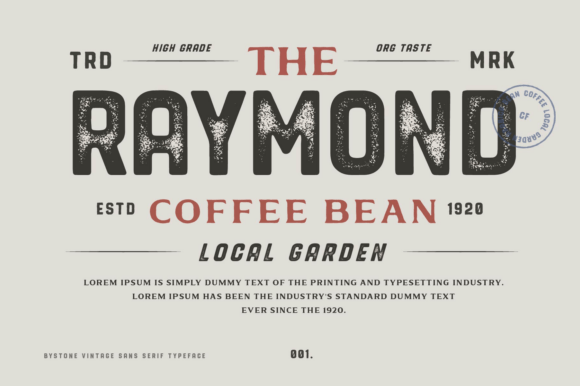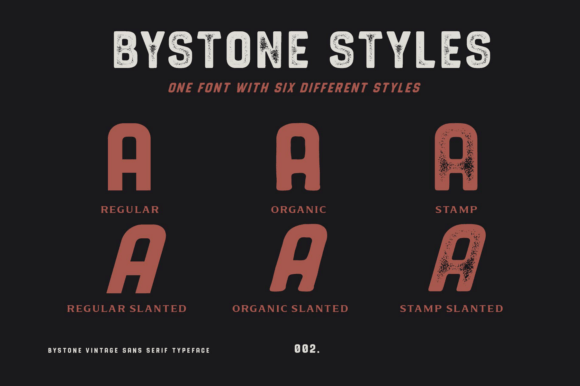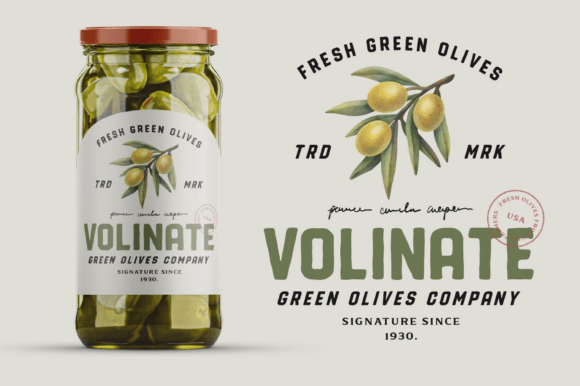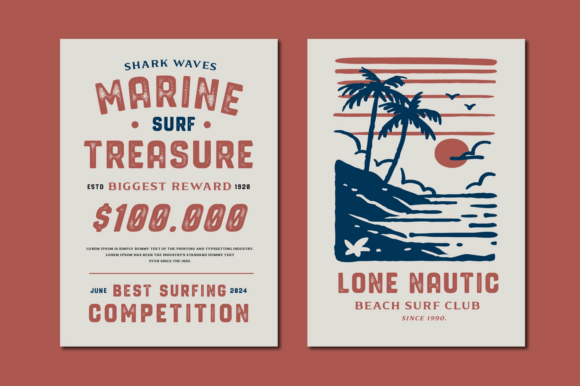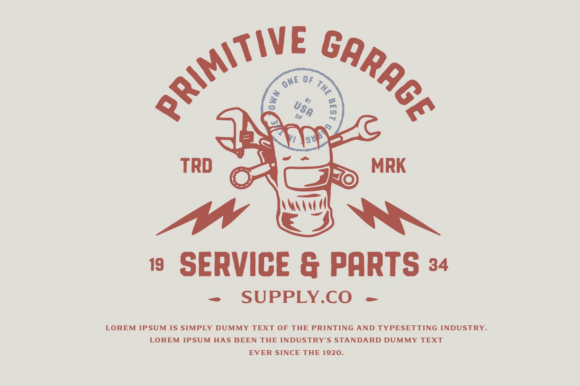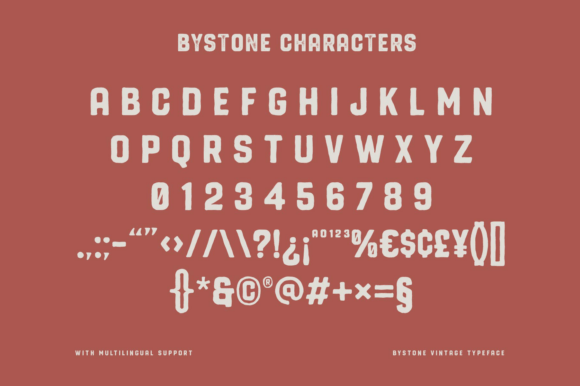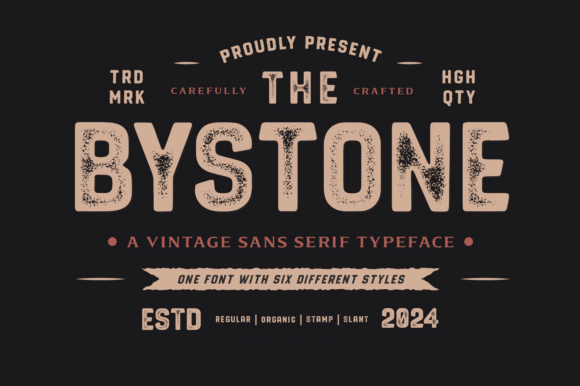
Bystone Font: Elevate Your Designs with a Timeless Vintage Flair
In the realm of typography, few fonts manage to capture the essence of vintage charm while exuding a sense of timelessness. Bystone Font is one such remarkable typeface that seamlessly blends classic character with a natural, effortless vibe. Designed to infuse your creative projects with authentic personality and enduring style, Bystone is the perfect companion for designers and crafters looking to make a bold statement.
The Essence of Bystone
Bystone is a vintage display sans serif font that boasts a classic yet natural character. Its design is rooted in the principles of bringing a sense of nostalgia and authenticity to modern design projects. Whether you’re crafting bold branding, standout logos, editorial headlines, or social media graphics, Bystone offers the perfect blend of vintage charm and contemporary appeal.
A Family of Styles
One of the standout features of Bystone is its versatile family of styles, each meticulously crafted to cater to different design needs and preferences. The font family includes:
- Regular Style: The Regular style of Bystone offers clean, balanced shapes with a classic presence. It’s ideal for designs that require a straightforward yet elegant approach. This style ensures that your text is legible and stylish, making it perfect for use in headings, titles, and where a subtle vintage touch is desired.
- Organic Style: For those looking to add a more natural look to their designs, the Organic style brings in subtle handcrafted details. This style adds a layer of warmth and personality to your text, giving it a more approachable and earthy feel. It’s great for designs that aim to tell a story or connect with the audience on a more personal level.
- Stamp Style: The Stamp style gives Bystone a rugged, weathered feel, adding character and depth to your designs. This style mimics the look of stamped or carved text, bringing a sense of durability and timelessness. It’s perfect for creating a bold impression, especially in branding and logos that require a strong, resilient look.
- Slant Style: The Slant style introduces gentle motion and an expressive vibe to Bystone. This dynamic style is ideal for designs that need to convey movement or a casual, approachable tone. It adds a creative twist to your text, making it more engaging and eye-catching.
Applications of Bystone
Bystone’s versatility makes it suitable for a wide range of applications. Here are some of the key areas where Bystone can make a significant impact:
- Bold Branding: Use Bystone to create memorable brand names, taglines, or slogans that stand out. Its vintage flair can help your brand appear more unique and captivating.
- Standout Logos: A logo is often the first impression of a brand. Bystone, with its range of styles, can help you create a logo that is not only visually appealing but also tells a story.
- Editorial Headlines: Add a touch of elegance and vintage charm to your editorial content with Bystone. It’s perfect for magazine titles, article headers, and any place you want to draw attention.
- Social Media Graphics: In the crowded world of social media, Bystone can help your graphics stand out. Use it for overlay text, captions, or quotes to give your posts a distinctive look.
Why Choose Bystone?
Bystone is more than just a font; it’s a design tool that offers flexibility, character, and a deep sense of history. Here are a few reasons why Bystone should be your go-to choice for your next project:
- Timeless Appeal: Bystone’s vintage roots ensure that your designs will never go out of style. Its classic character has a timeless appeal that transcends fleeting trends.
- Versatility: With its range of styles, Bystone can be adapted to fit a variety of design needs and aesthetics. Whether you’re going for elegance, ruggedness, or playfulness, there’s a Bystone style to match.
- Authenticity: Bystone brings an authentic vintage feel to your designs, setting them apart in a world of generic typography. This authenticity can help your brand or project connect more deeply with its audience.
In conclusion, Bystone Font is a powerful tool for designers and crafters looking to infuse their projects with a sense of vintage charm and timeless style. Its range of styles, from the classic Regular to the expressive Slant, offers the flexibility to match different moods and applications. By choosing Bystone, you’re not just selecting a font; you’re embracing a design philosophy that values authenticity, character, and enduring appeal.